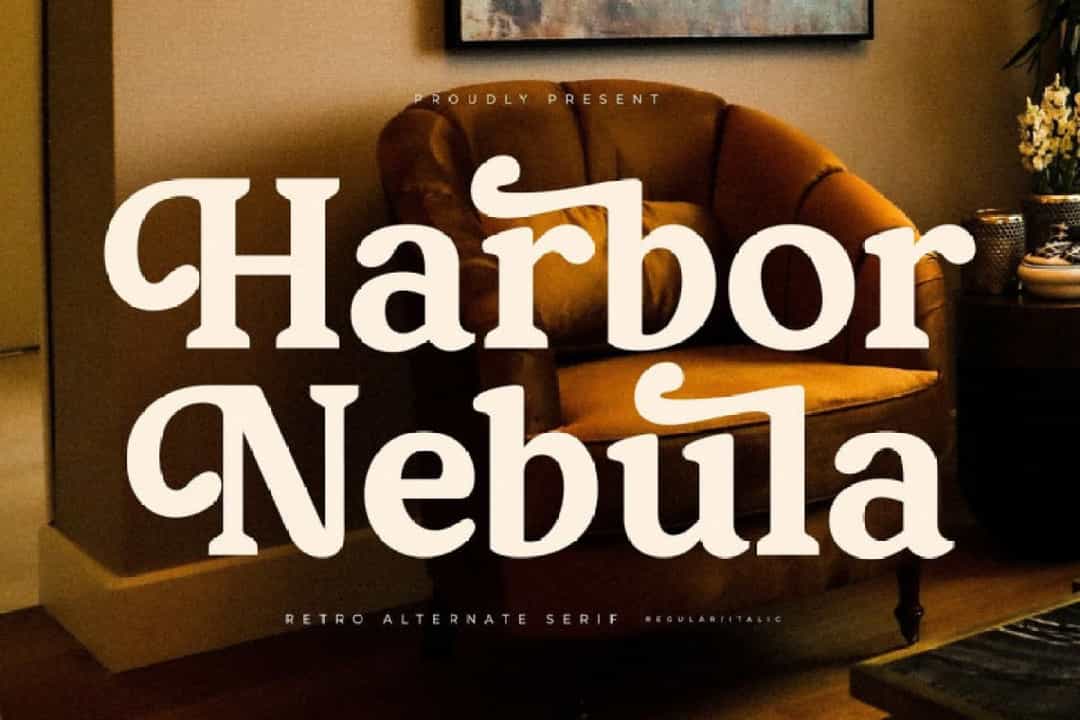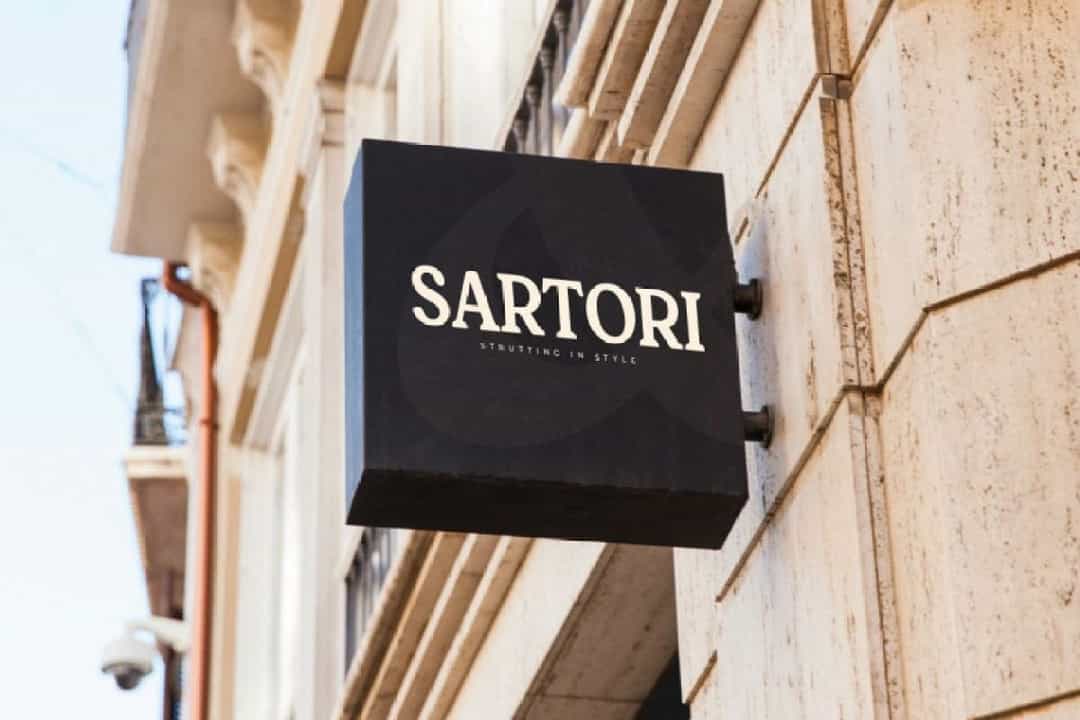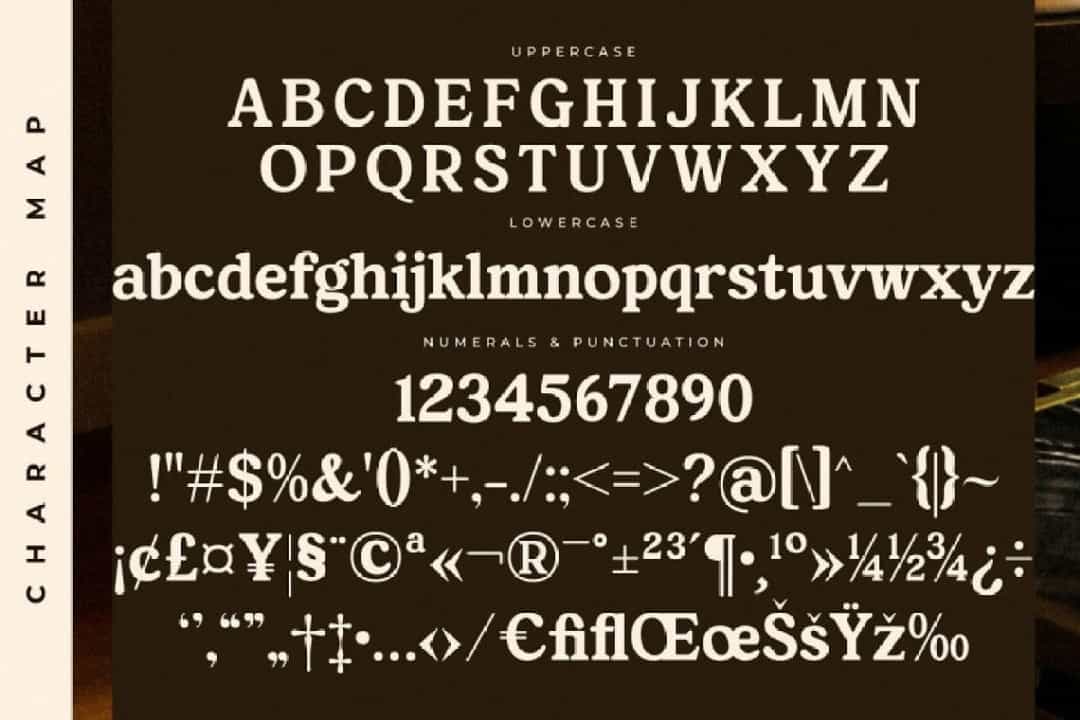
Harbor Nebula is an elegant and contemporary serif typeface, mixing modernity and sophistication. Its crisp lines and balanced proportions make it suitable for editorial designs as well as logos and branding applications. Harbor Nebula brings elegance and professionalism into any design with its timeless appeal and flexibility.